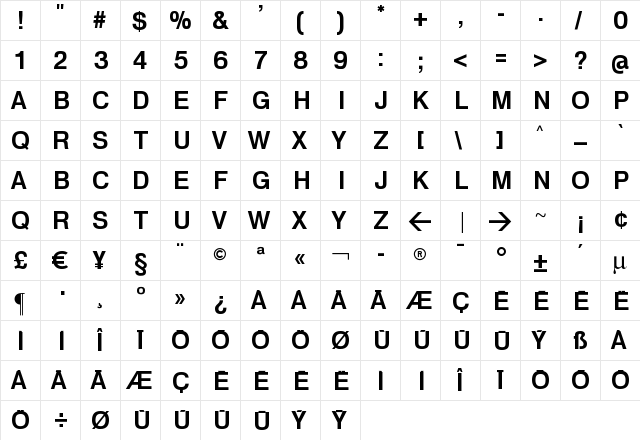
HeldustryFTVBasic Regular
Design Context for HeldustryFTVBasic Typeface
HeldustryFTVBasic offers clean, dependable letterforms without strong stylistic allegiance, making it a practical choice for designers who need flexibility.